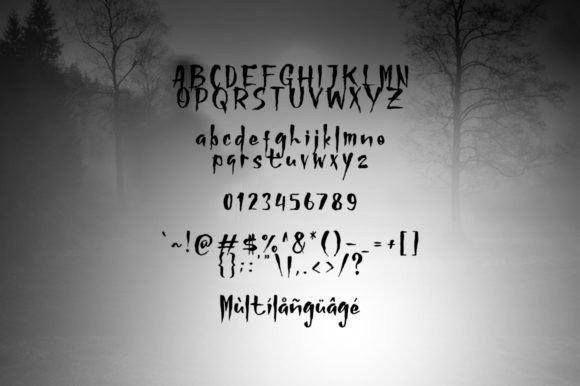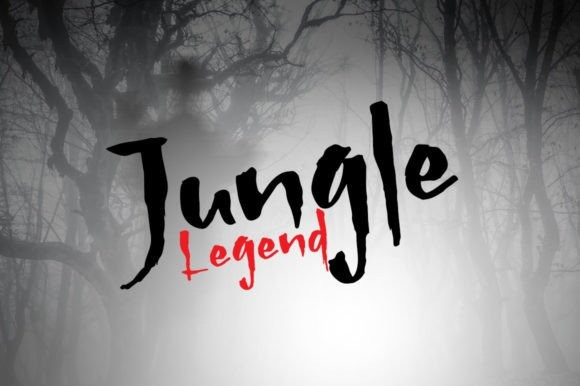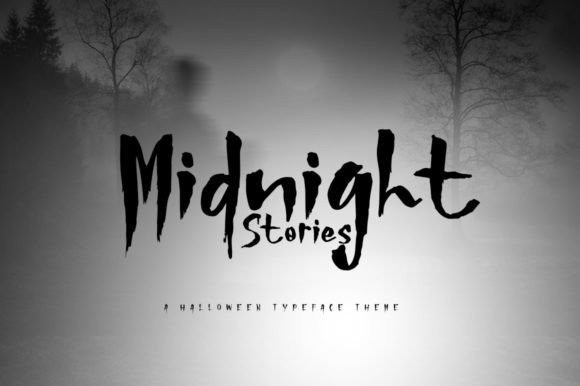
Midnight Stories Font
Midnight Stories Font is a unique and attractive display font. This font is suitable for designs with horror and Halloween concepts. It can easily be matched to an incredibly large set of projects, so add it to your creative ideas and notice how it makes them stand out!